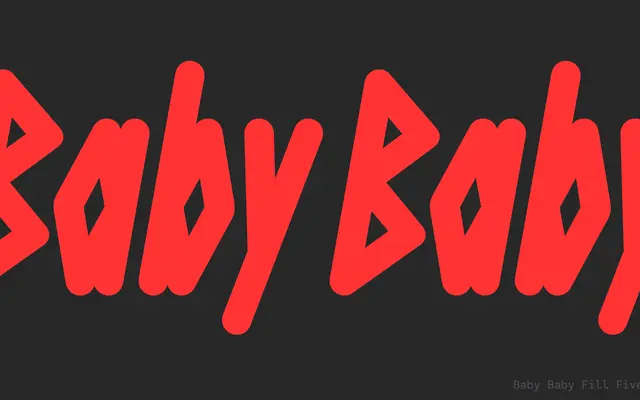
Baby Baby specimen from Dharma Type
A striped, mono-line display family built for layering, with decomposed fill styles that stack to produce colour gradients and rim effects.
Constructed entirely from straight mono-lines with no calligraphic influence, it achieves a cold, mechanical aesthetic suited to titles, logos and high-impact graphics. The family splits into four sub-families: Upright and Slanted for immediate impact, Fill for five expanding stem-width layers, Open for additional stacking options, and Color for pre-built gradient and stripe combinations. The layering system allows each style to be stacked with independent colour assignments, producing typographic effects that go well beyond a single typeface.
A purely decorative, experimental display family built on a striped mono-line construction with no text utility; designed explicitly for layering and colour effects, placing it firmly in the display category.